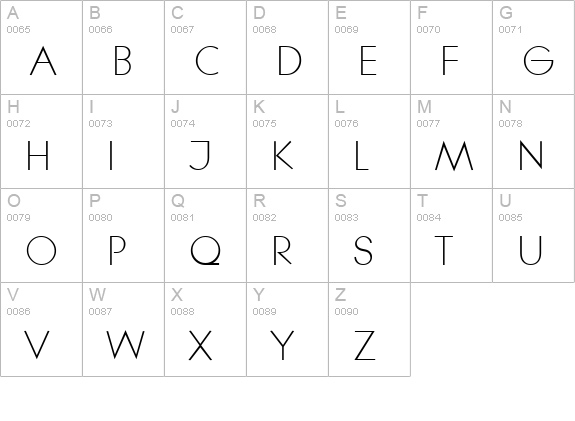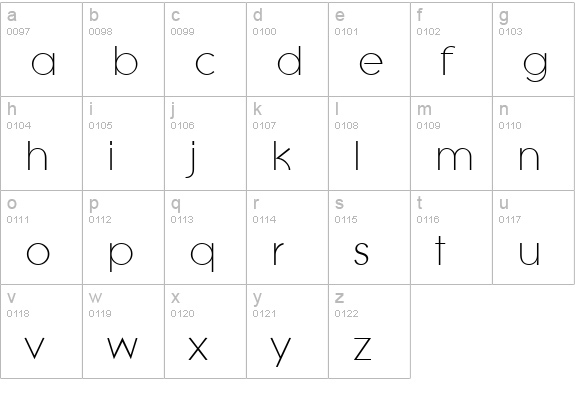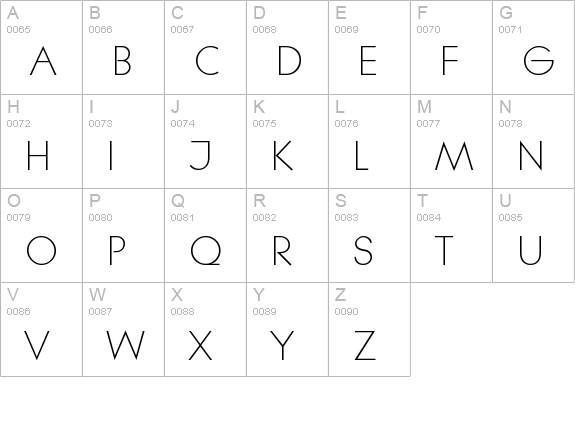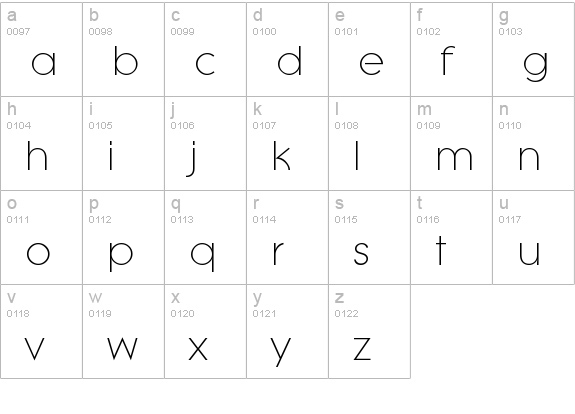
LitheLight Regular Font Details
LitheLight Regular is the standard, neutral variant in the LitheLight typeface family \xE2\x80\x94 well suited to general body text, paragraphs, and standard typographic work.
LitheLight Regular font is a modern and elegant typeface that exudes sophistication and style. Its sleek lines and graceful curves make it perfect for a wide range of design projects, from branding to editorial design. The font's clean and legible appearance ensures readability in both print and digital formats. What sets LitheLight Regular apart is its versatility – it can be used for both headings and body text, making it a valuable addition to any designer's toolkit. Whether you're working on a website, magazine layout, or branding materials, this font will add a touch of refinement to your project. The best part? LitheLight Regular is completely free to download at FontsMarket.com. So you can elevate your designs without breaking the bank. Don't miss out on this stylish and versatile font – download LitheLight Regular today and take your designs to the next level.